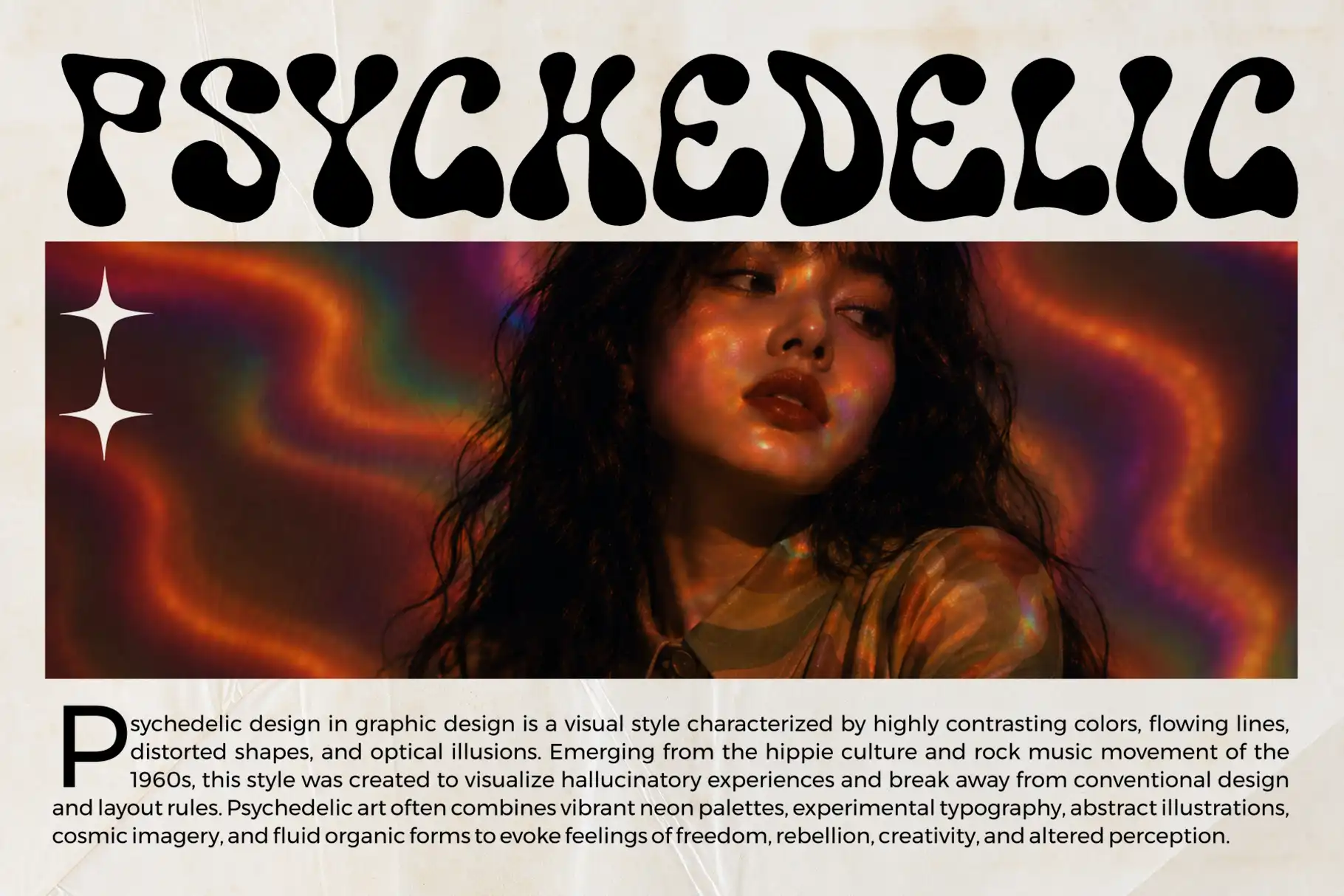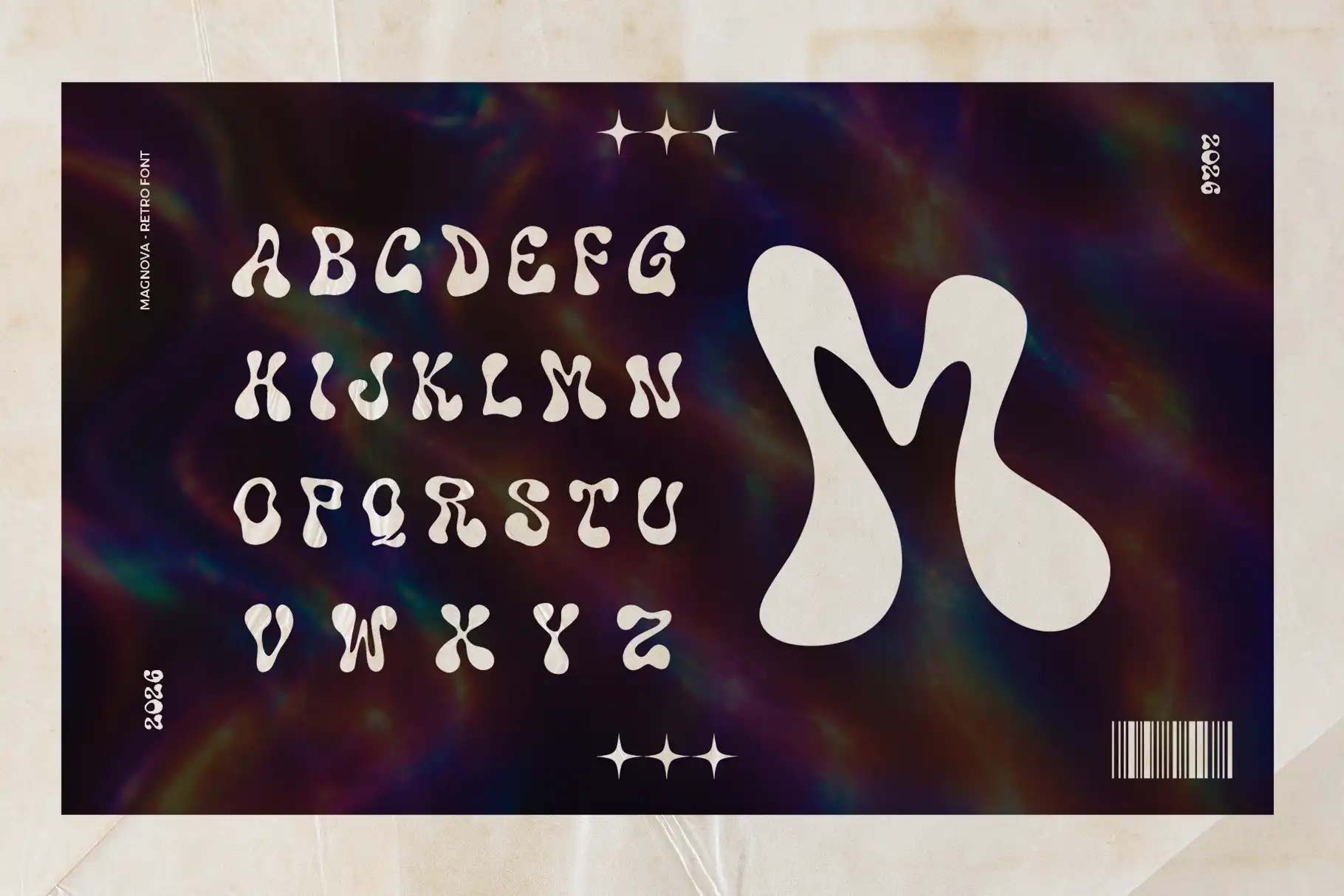
Meet Mignova Psychedelic Display Font
Mignova Psychedelic Display Font is an expressive all-caps typeface created for designs that need energy, personality, and an unmistakable visual presence. Its psychedelic display direction makes it a strong choice for attention-grabbing headlines, imaginative branding, poster typography, music artwork, merchandise, and creative promotional graphics.
Designed for prominent text, Mignova helps words become an important part of the visual composition. Instead of fading into the background, its letterforms give titles, names, and short statements a distinctive identity. This makes the font especially useful for designers who want typography to carry the mood of a project.
Whether you are building a retro-inspired identity, developing a colorful campaign, or creating bold artwork for a creative audience, Mignova gives your typography a confident and unconventional voice.
Mignova is built around a psychedelic display aesthetic. The style feels imaginative, energetic, and visually adventurous, making it well suited to projects that move beyond minimal or traditional typography.
Its personality can support designs influenced by retro graphics, experimental art, colorful music culture, expressive editorial layouts, and unconventional branding. The all-caps format creates a strong typographic rhythm, helping short words and headlines feel structured while still carrying a playful creative mood.
Use Mignova when the message needs to be seen quickly and remembered. It is especially effective at larger sizes, where the display character can take a central role in the layout. Designers can explore vibrant color combinations, curved compositions, layered graphics, grainy textures, gradients, or clean backgrounds depending on the desired direction.
The font can feel nostalgic when combined with warm retro colors, but it can also look contemporary when paired with sharp layouts and modern supporting typography. This flexibility allows Mignova to work across different creative markets without losing its distinctive psychedelic identity.
Best Use Cases
Mignova works best in applications where typography needs to create immediate impact. It can be used for poster headlines, album and playlist artwork, event promotions, festival graphics, social media campaigns, apparel designs, packaging titles, logo concepts, editorial covers, stickers, and digital product graphics.
For music-related projects, the font can help establish an expressive identity for artists, bands, events, or themed playlists. Its display personality also makes it useful for entertainment graphics, creative community events, and promotional artwork that needs to feel lively rather than corporate.
Brand designers can use Mignova for businesses with bold, artistic, retro, or unconventional positioning. It may suit fashion labels, record stores, art events, creative cafés, lifestyle products, independent studios, or merchandise brands that want a recognizable typographic voice.
Content creators can use it for thumbnail titles, campaign headers, social media quotes, short announcements, and promotional graphics. Crafters and digital product sellers may also find it useful for printable posters, apparel graphics, stickers, invitations, and themed design collections.
Because Mignova is a display font, it is best used selectively. Let it lead the visual hierarchy in titles or short statements, then pair it with a simpler typeface for supporting information and longer text.
Mignova Psychedelic Display Font Key Features
- Psychedelic display font style
- All-caps character set
- Numbers included
- Punctuation included
- Multilingual support
Mignova gives designers a direct way to add character to a project without depending on complicated effects. A single headline can establish the tone of the entire composition, helping reduce the need for excessive decoration.
Its all-caps construction is practical for titles, logos, labels, badges, and short promotional statements. Numbers and punctuation make it easier to build dates, prices, event information, product names, and complete headline compositions within the same visual style.
Choose Mignova Psychedelic Display Font when ordinary typography feels too quiet. Build a headline that becomes the artwork, create a design with a distinctive rhythm, and give your next project a confident psychedelic voice.